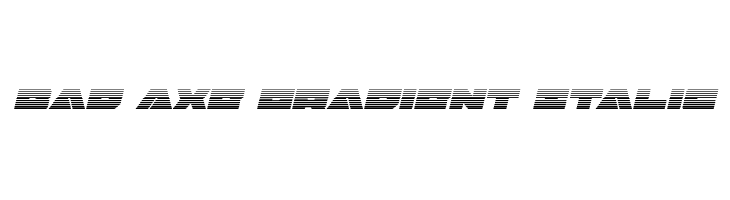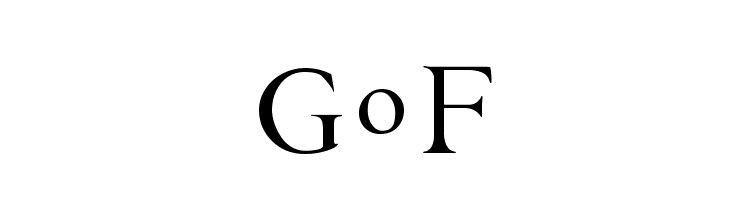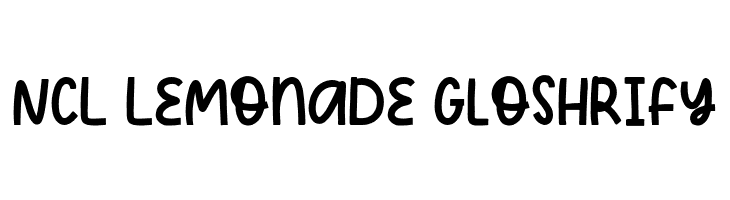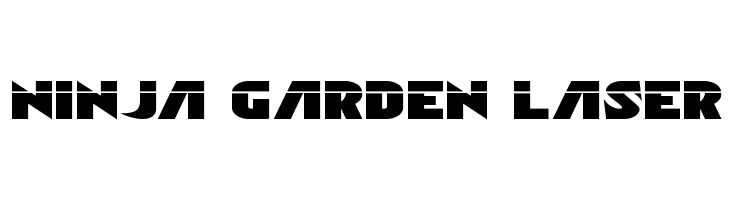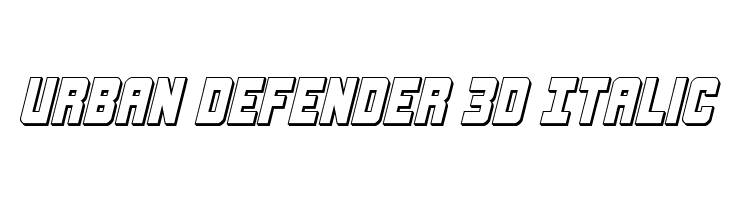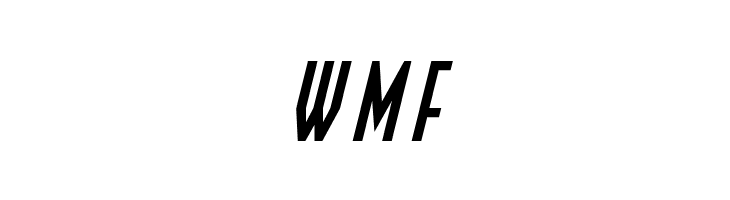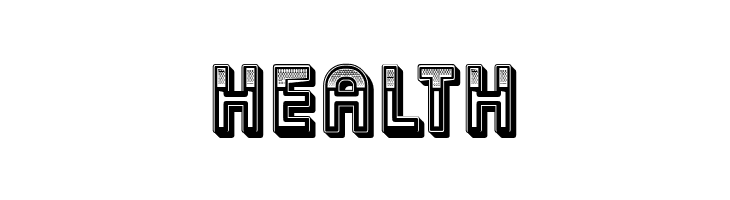
A classic serif font with high contrast and elegant letterforms.
A lively and expressive script font with fluid, dynamic strokes.
A bold, futuristic font with geometric shapes and high contrast, ideal for modern themes.
A lively, handwritten font with bold, flowing strokes and a playful charm.
A bold, distressed font with a playful and rugged aesthetic.
A bold, geometric, and italic font with a modern flair.
A bold, geometric font with a modern, industrial aesthetic.
A bold, geometric font with a three-dimensional effect created by parallel lines.
A bold, 3D geometric font with a retro arcade style.
A bold, striped font with a modern, digital aesthetic.